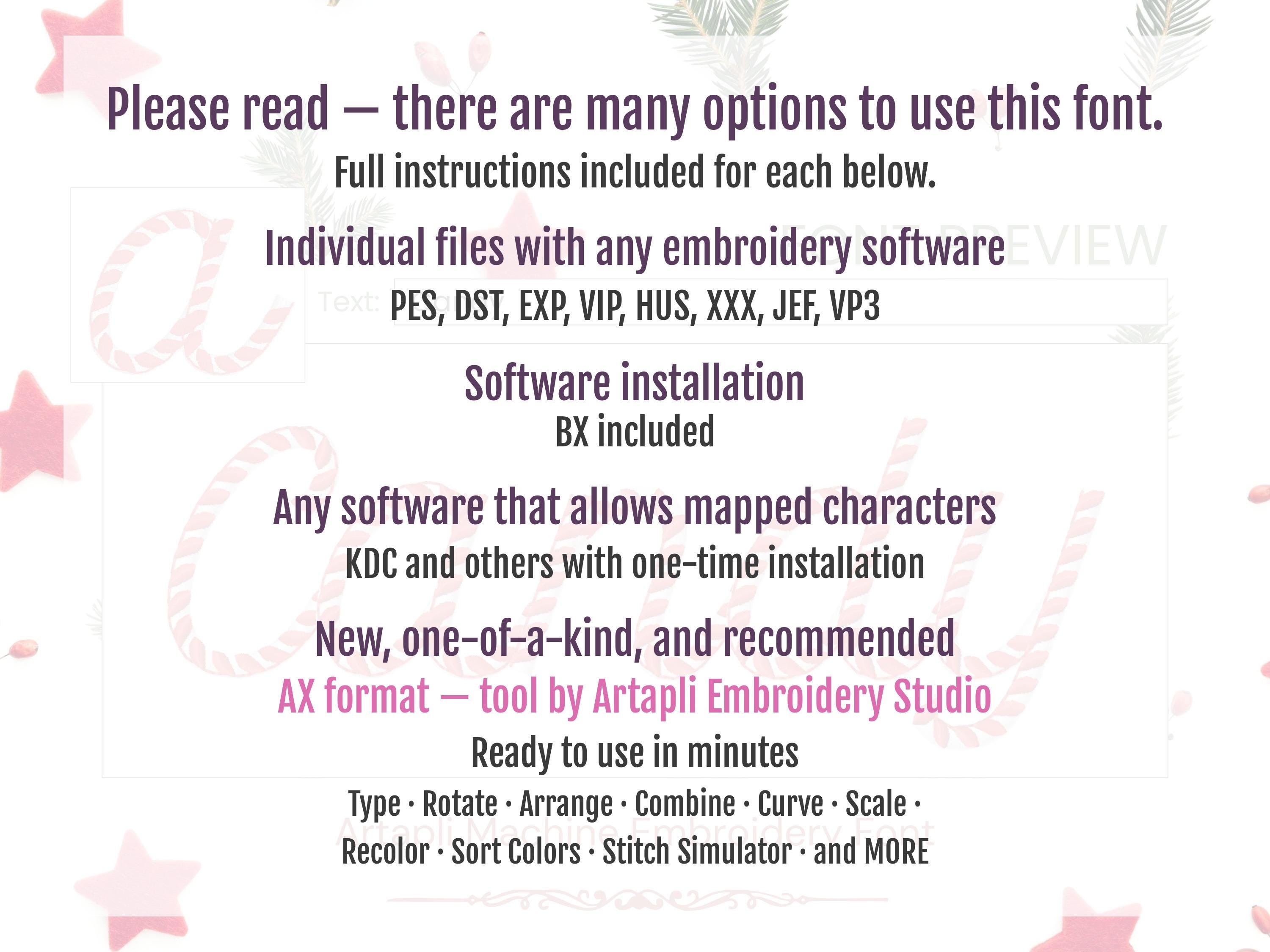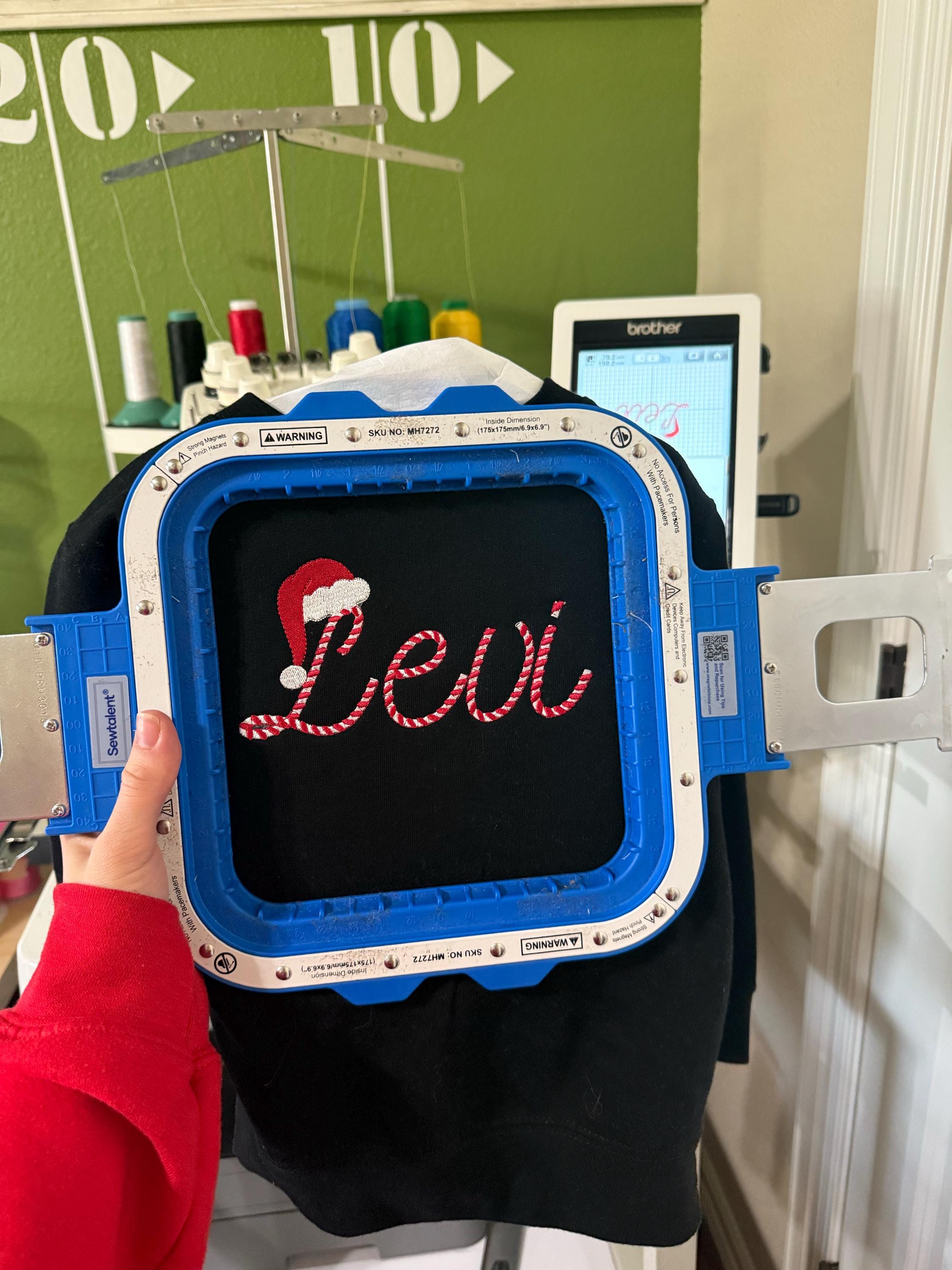
Candy Classy FONT candy cane stitch 2 colors alphabet letters numbers Christmas monogram machine embroidery designs sizes 1.6 up to 3.4 in
Entire alphabet has uppercase and lowercase letters Aa-Zz, numbers 0-9, comma and dot.
Très bonne idée l'ecriture sucre d'orge
Was ok but not one of my favorites.
Very cute to use for Christmas
The font’s quality was wonderful! It stitched out so pretty.